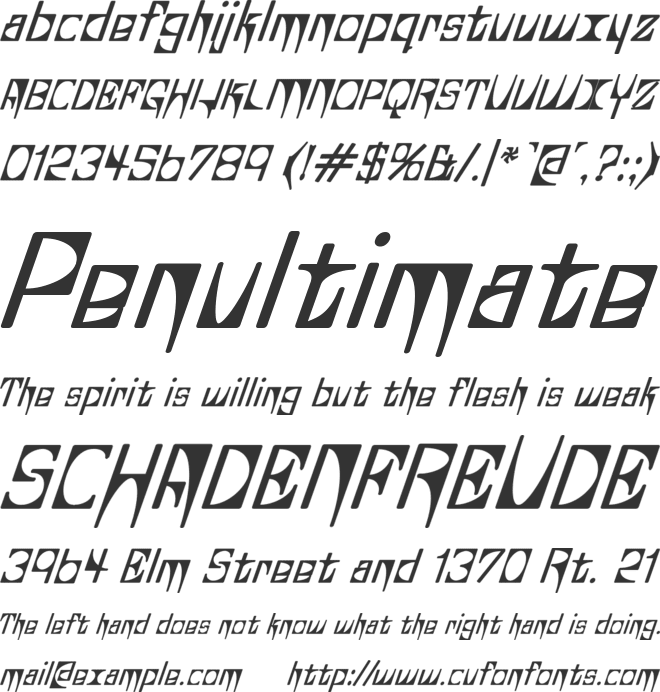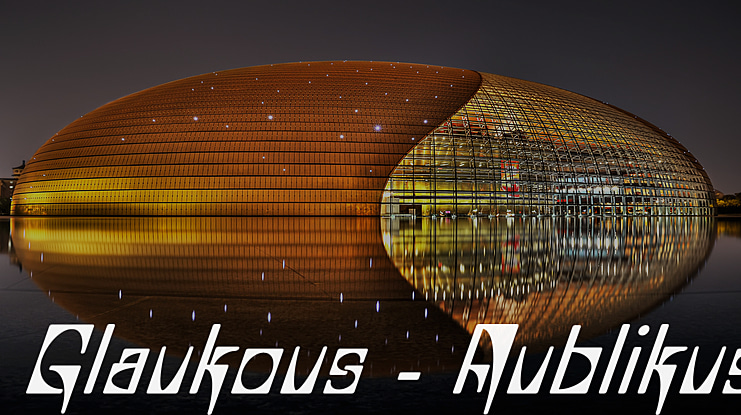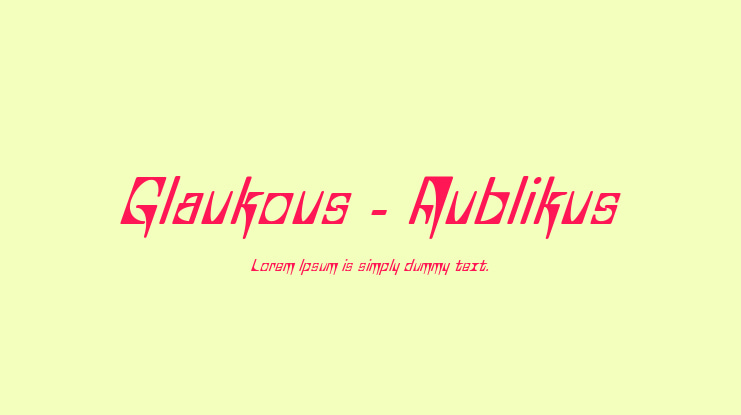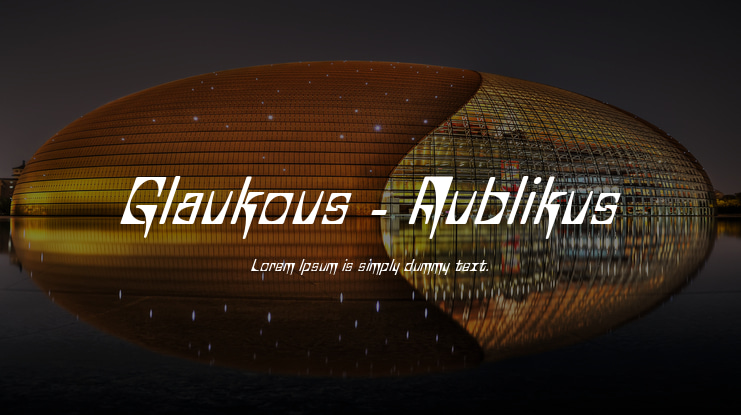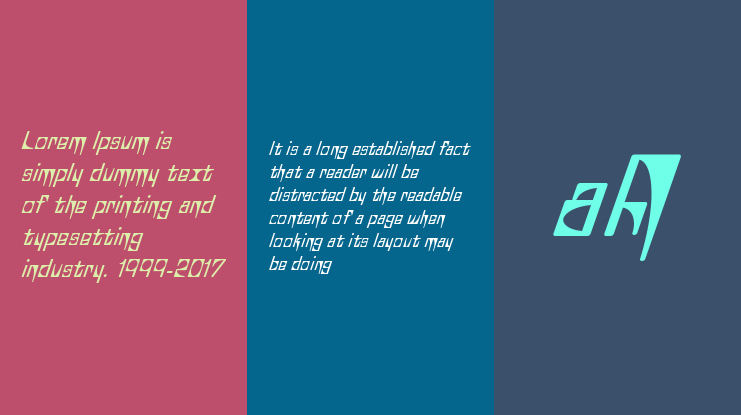
Glaukous - Aublikus Font Family
Glaukous began from one letter on a sign above a rave clothing store in downtown Toronto. The name of the store is ZUPJAR. The sign had nothing on it but the name, with each letter being completely different in style from the rest. The letter that became Glaukous was the J.
Rich ventured once again into the land of geometry to make this one, except this time it wasn't as straight forward a concept as Textan. He had very limiting denominators to deal with. And I must say he did a hell of a job with what he had. Pushing rasterizers to their full limits is not something you see people attempt often.
About 98% of the original Glaukous letters were mostly done by Rich. I remember adding a few myself, but can't remember which ones. I did the kerning (easy task there, given the geometrical nature of the font). Then I suprised Rich by adding the 4 other fonts to the pack. The idea behind Viscous and Aublikus was basically to humanize the geometry of the original font. Those two took some time cleaning up and rekerning. Industrious is a straight shadow effect, tweaked for the hints. Paukous is the result of stacking two Photoshop filters on Aublikus. Bless be the discontinued plugins of Rubberman.
Aublikus turned out to be my favourite font of the set. Maybe I'm still having techno flashbacks here, but that thing MOVES.